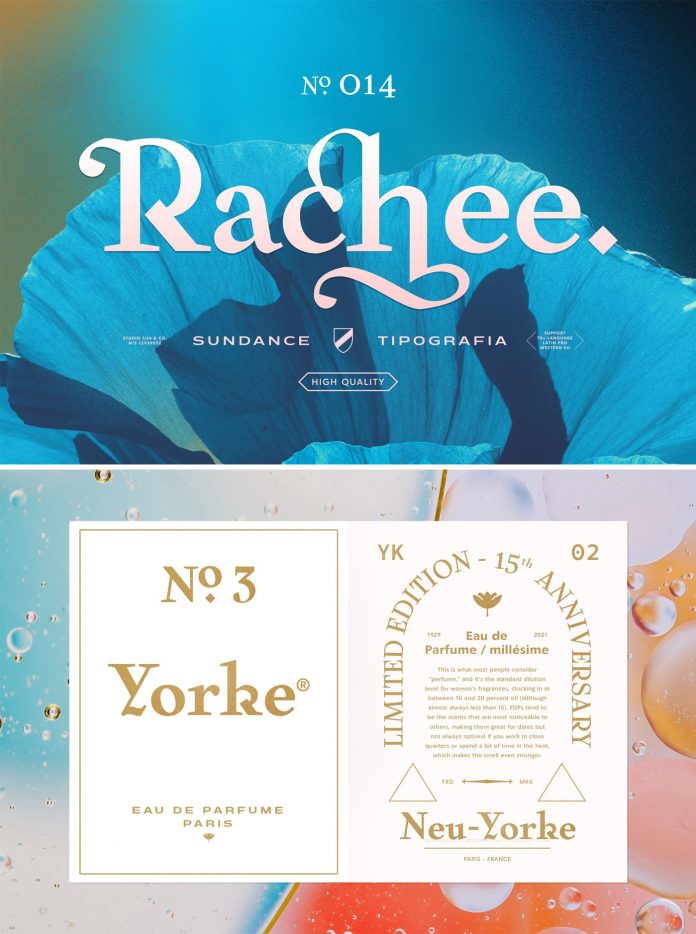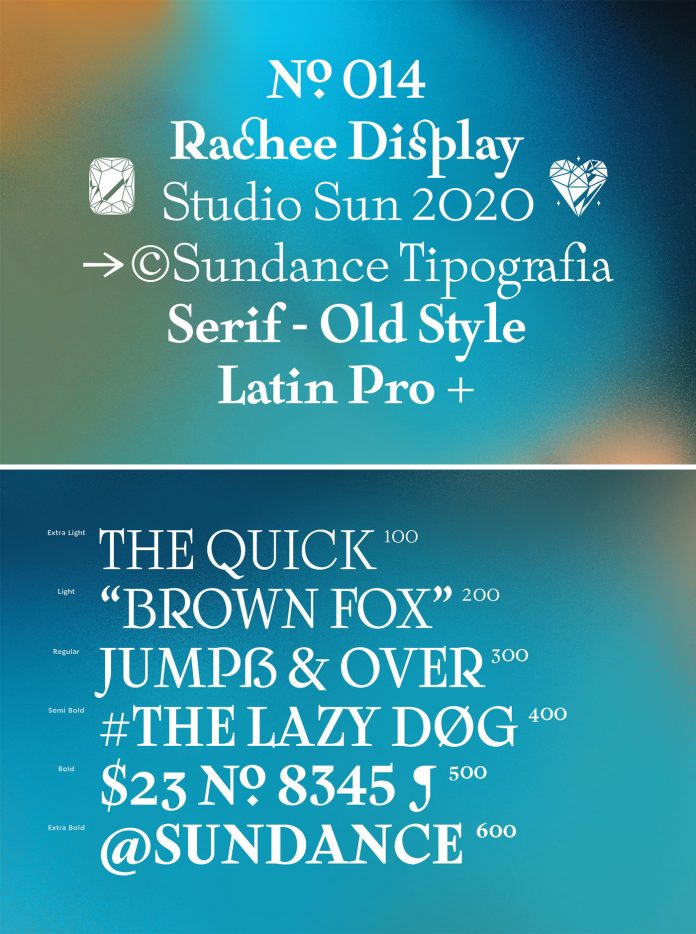
Take a look at Rachee Display, a unique serif font family inspired by the late Renaissance era of type design.
Rachee Display is a beautifully designed serif font family from Studio Sun. Inspired by the late Renaissance era, it offers an elegant typeface in six weights ranging from light to extra bold. As its name suggests, it is intended for use as a display font. Whether striking headlines or logotypes, this unique typeface is always an eye-catcher. Rachee Display comes with plenty of OpenType features including ligatures, alternates, fractions, and more.